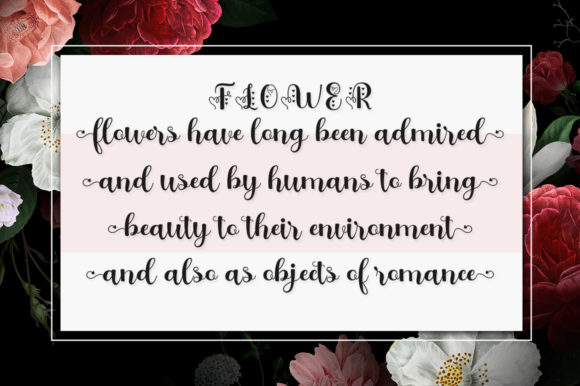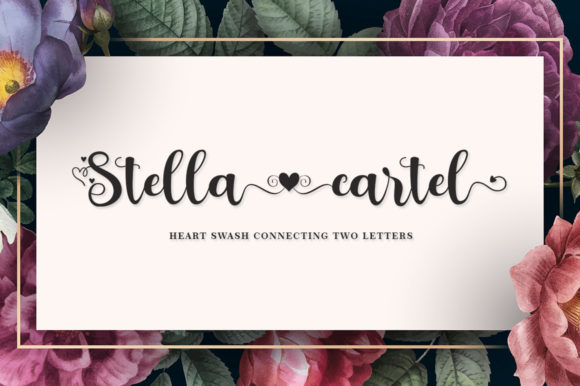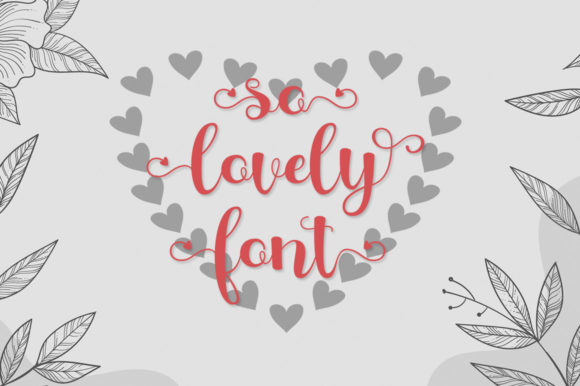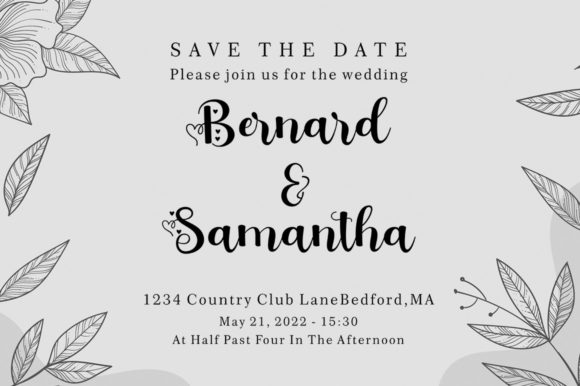
Style Allya Font
About Style Allya Font
Style Allya is a romantic and sweet calligraphy typeface with characters that dance along the baseline. It will add a luxury spark to any design project that you wish to create! This font is PUA encoded which means you can access all of the amazing glyphs and ligatures with ease!